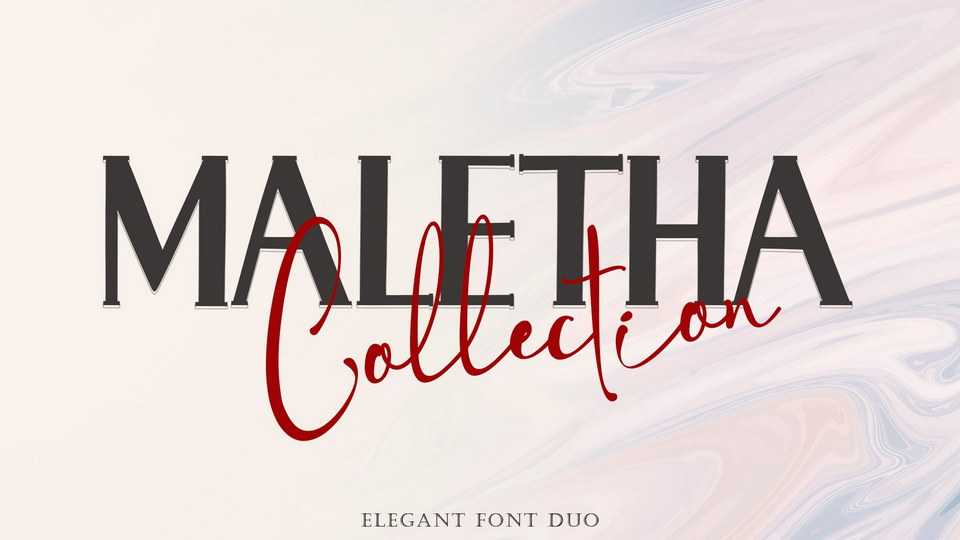
Download Maletha Collection fonts, a stylish and comprehensive Script and Serif, ideal for giving your projects a branded but friendly feel. The fonts can be combined together perfectly but are also beautiful on their own.